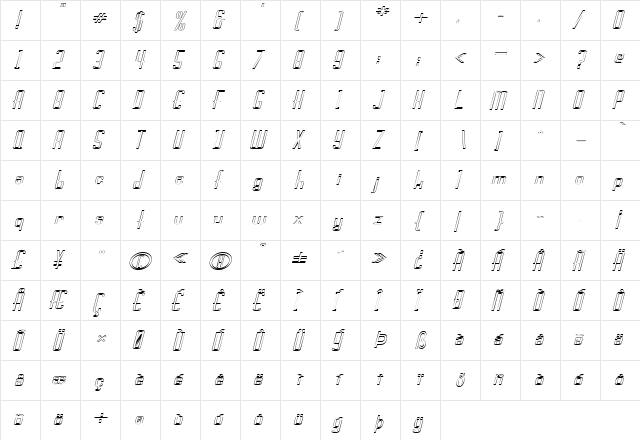
Devon-Hollow-Extended Italic
Design Context for Devon-Hollow-Extended Typeface
Devon-Hollow-Extended is a composed and adaptable typeface that performs quietly and consistently across a wide range of design contexts. Its italic angle brings a sense of urgency and motion to the letterforms.
Pro Tip: Use Devon-Hollow-Extended for emphasis, pull quotes, and subheadings where its slanted energy can add rhythm to the layout.